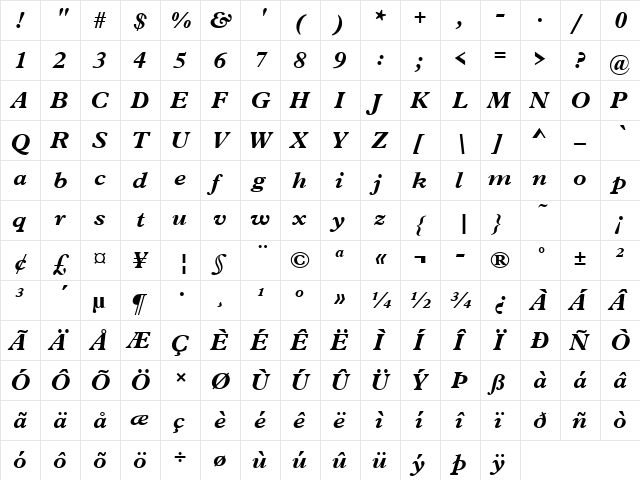
URWPleiadesT Bold Italic Font Preview
Design Context for URWPleiadesT Typeface
URWPleiadesT takes a measured approach to typography — its balanced proportions and neutral character make it a reliable workhorse for both digital and print work. Its italic angle brings a sense of urgency and motion to the letterforms. The heavy weight commands attention and anchors typographic hierarchies.
Pro Tip: Try URWPleiadesT for annotation and caption copy alongside an upright companion — the contrast in angle creates a dynamic but ordered typographic system.